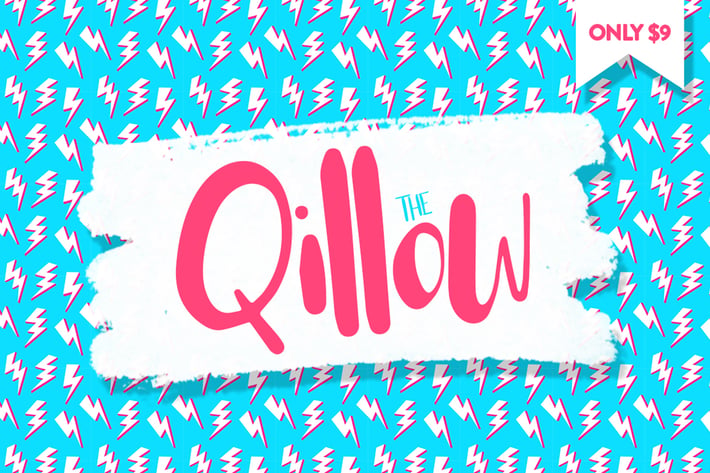
Qillow Font
The Qillow script is a brand new playful font, perfect for packaging, invites, kids products or anything fun. Its unusual character shapes make it completely unique and perfect for adding a little fun to any design.. Enjoy! Get your copy for only $9